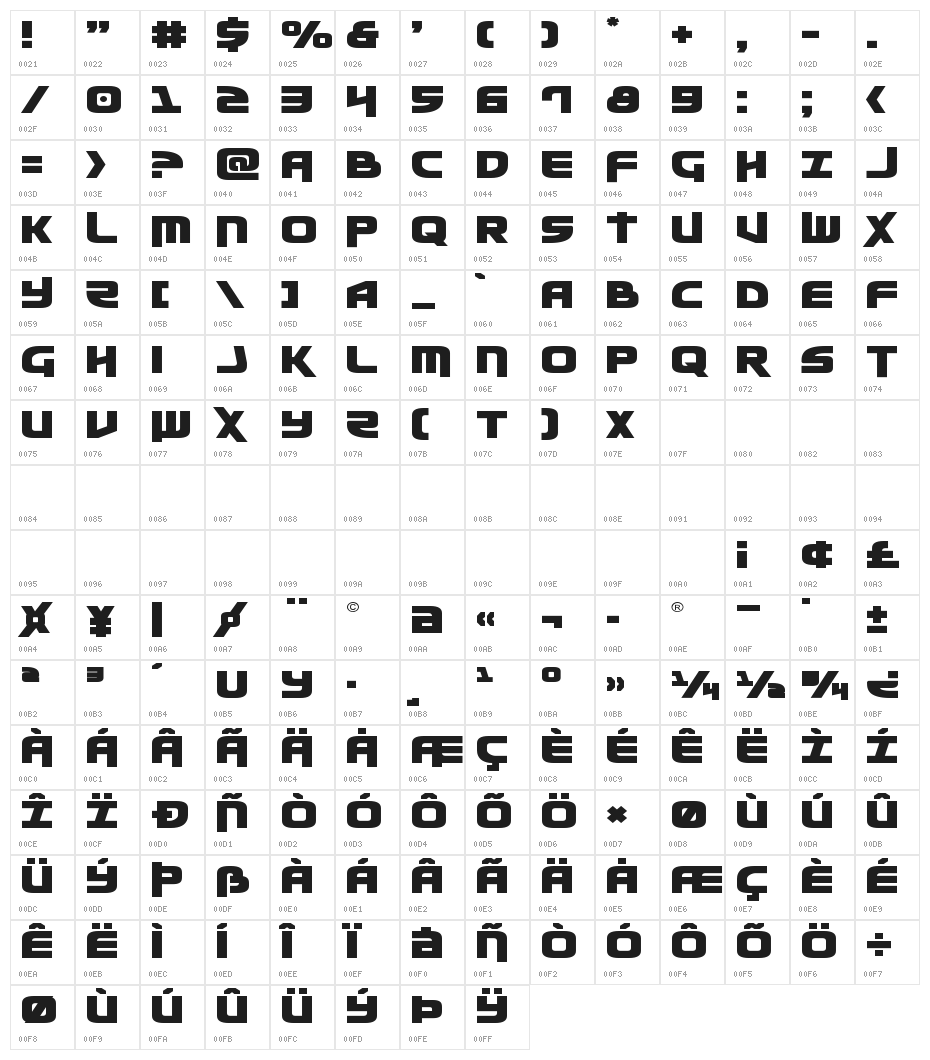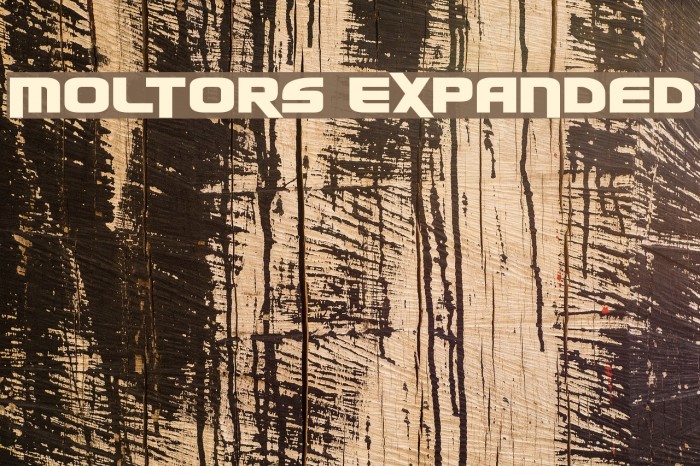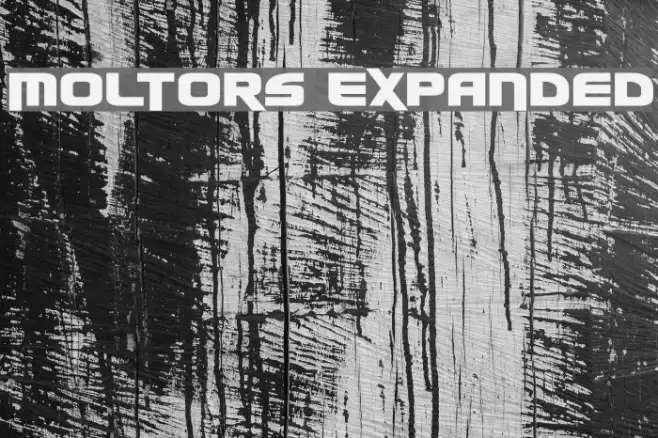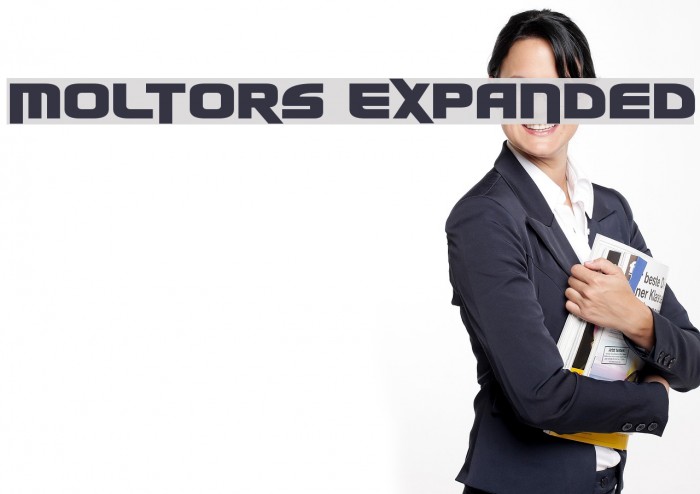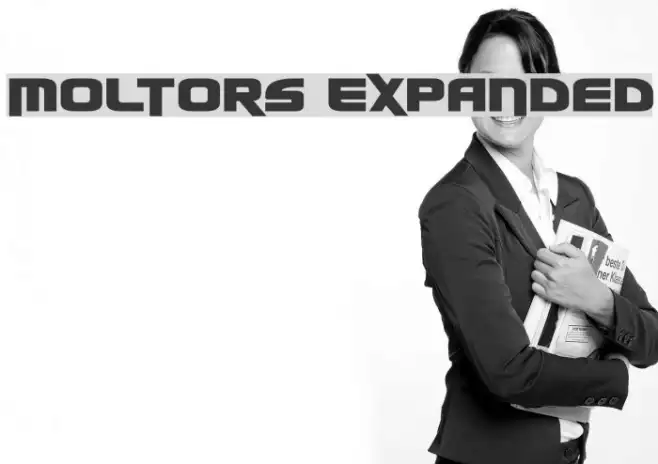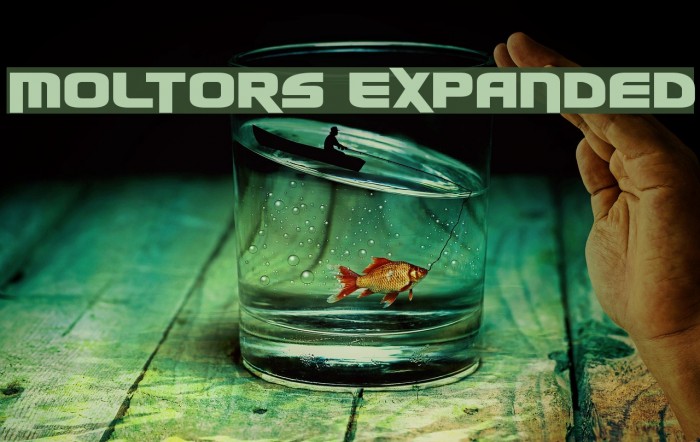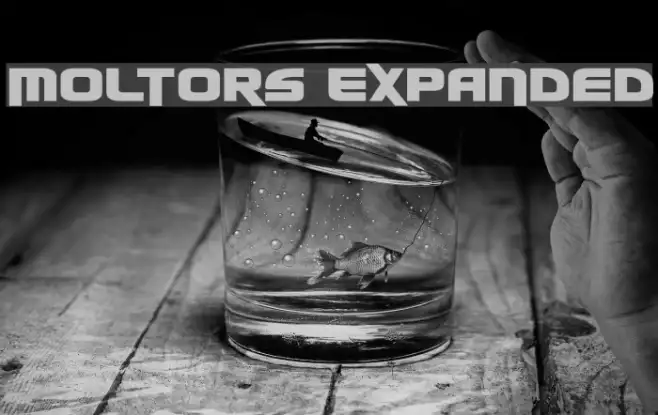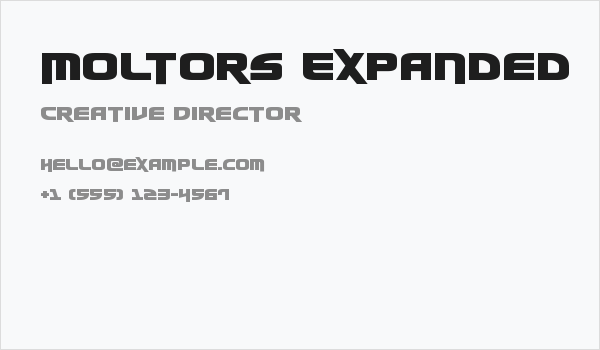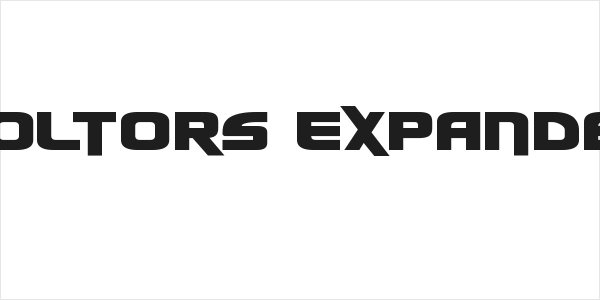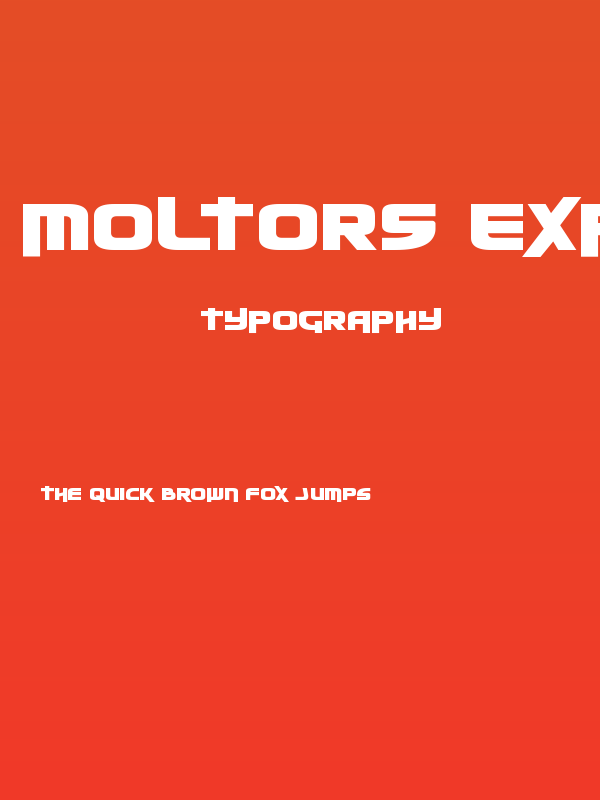
Moltors Expanded Font
Moltors Expanded Description
This font features a bold and futuristic design with strong geometric shapes and a distinct expanded width. The characters are crafted with sharp angles and clean lines, giving it a modern and assertive appearance. The uppercase and lowercase letters maintain a consistent style, while the numerals and special characters complement the overall aesthetic. The font's unique structure makes it stand out, ideal for projects that require a striking and contemporary look.